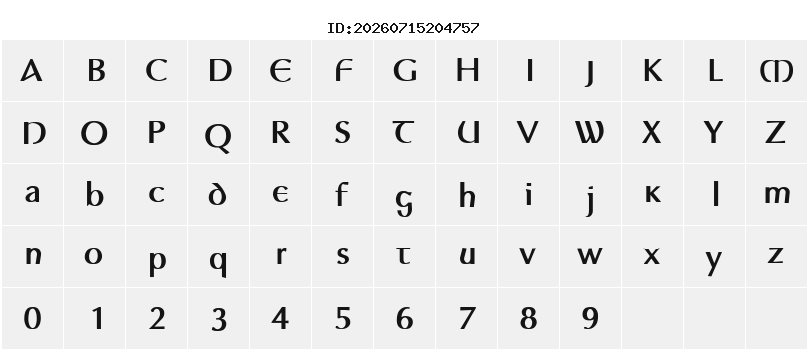
Auptimagh AH Preview
• Font Name: Auptimagh AH
• Full Font Name: Auptimagh AH
About Auptimagh AH.ttf
Auptimagh AH.ttf is a modern, elegant sans-serif font designed for ultimate readability and visual harmony. Perfect for branding, headlines, web design, and print materials.